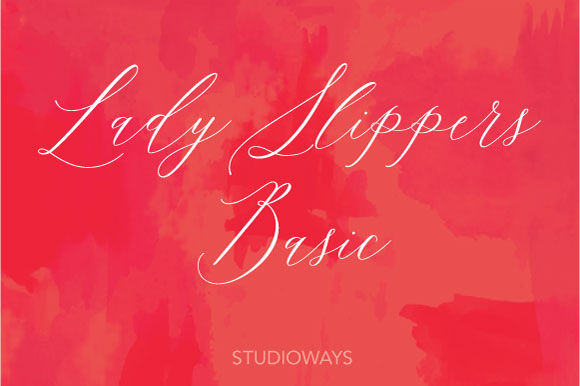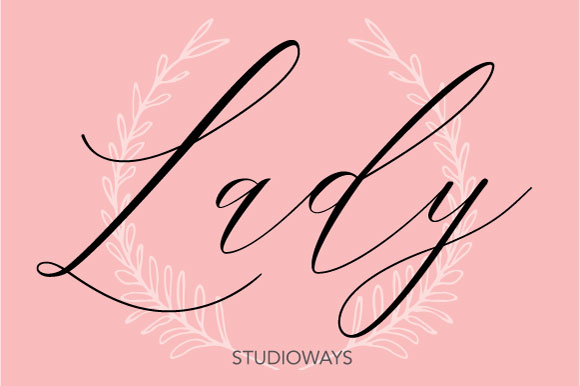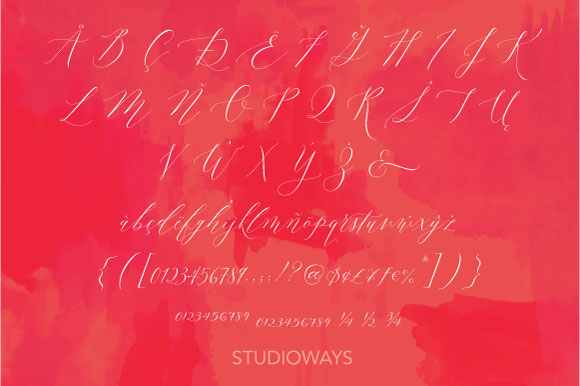
Lady Slippers Basic Font
This is Lady Slippers Basic, a delicate and beautiful typeface resembling one of Eliza Gwendalyn’s popular modern calligraphic styles! This Basic font is a toned down version of Lady Slippers.
Create beautiful and seemingly handwritten calligraphy designs with Lady Slippers, and robust yet delicate script font. Modern and romantic, this is an amazingly diverse typeface to be used for a large number of designs.